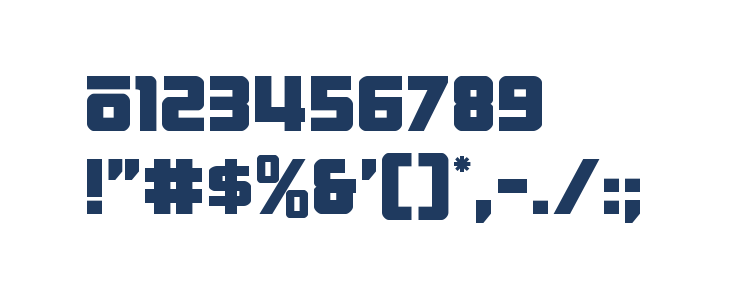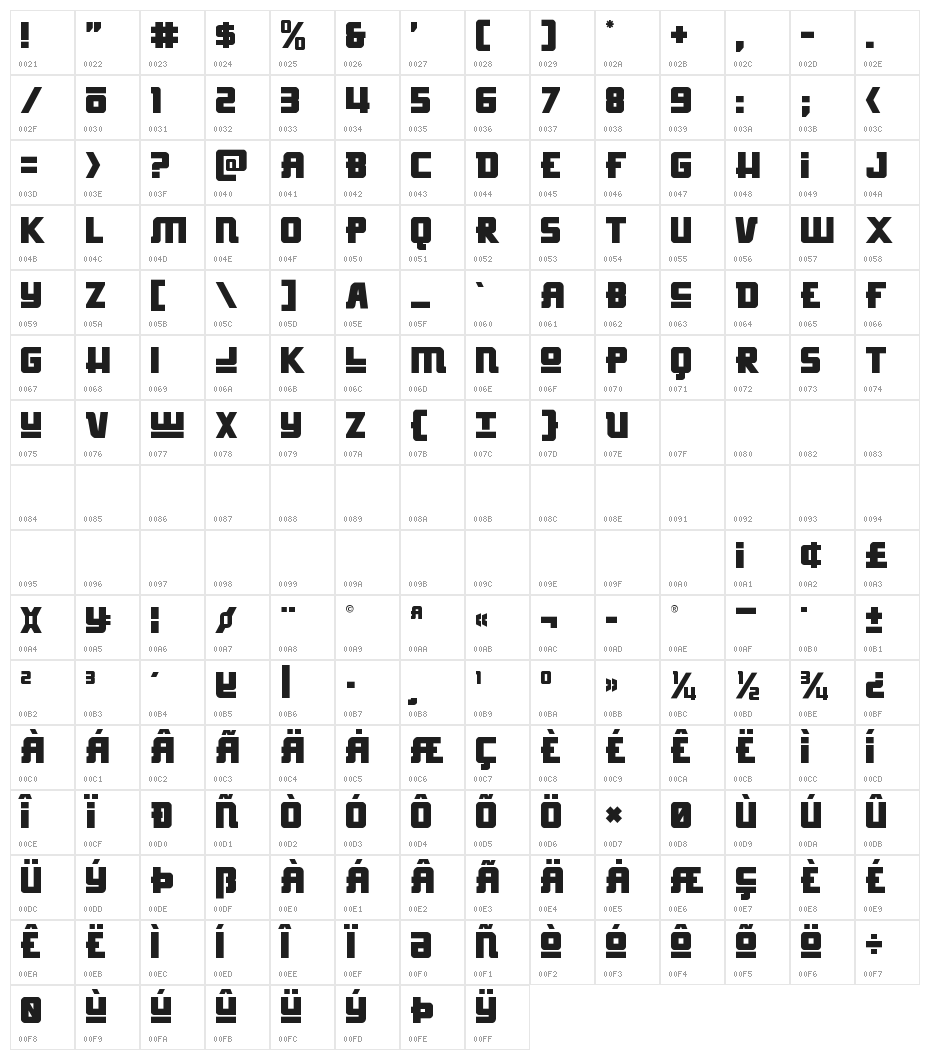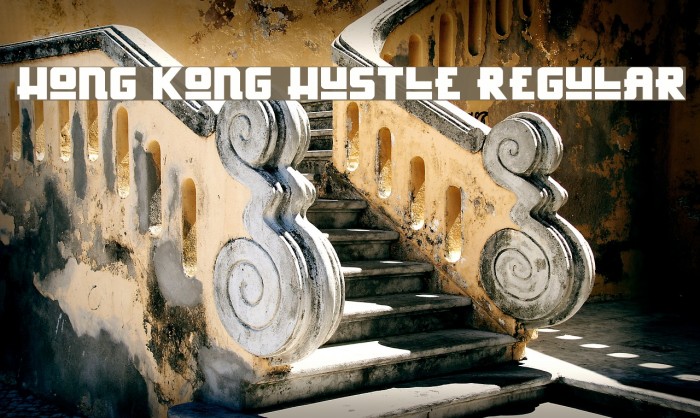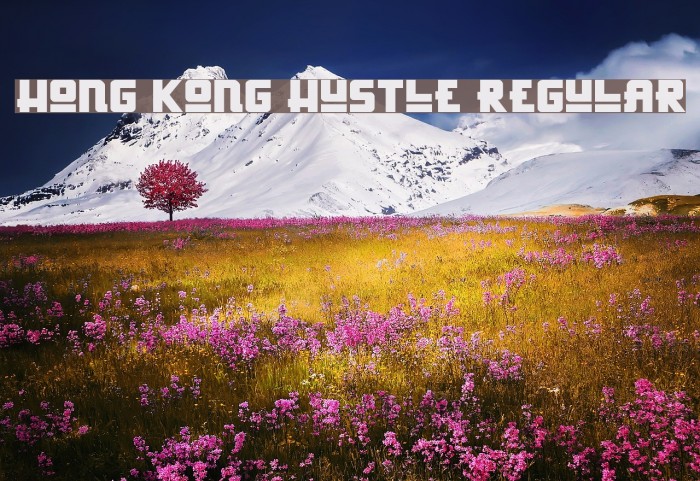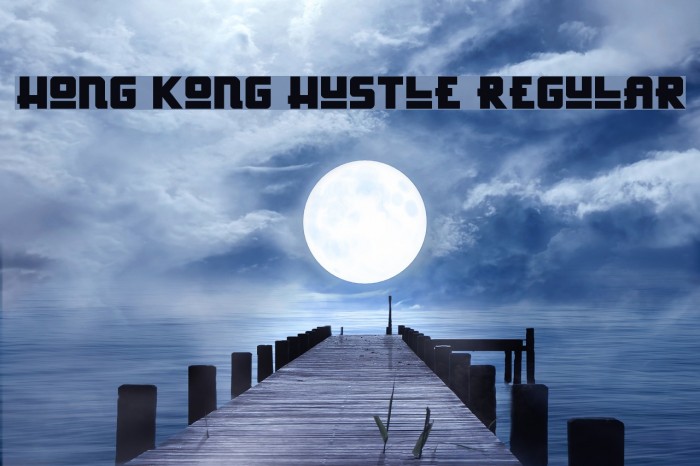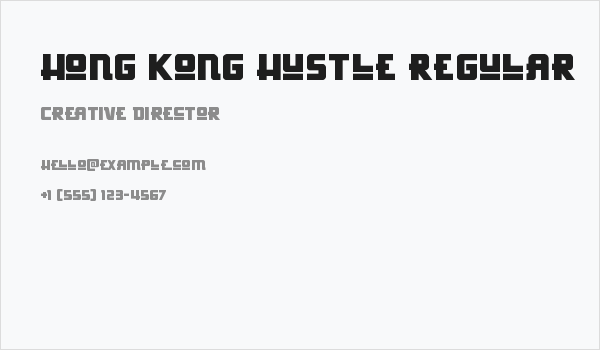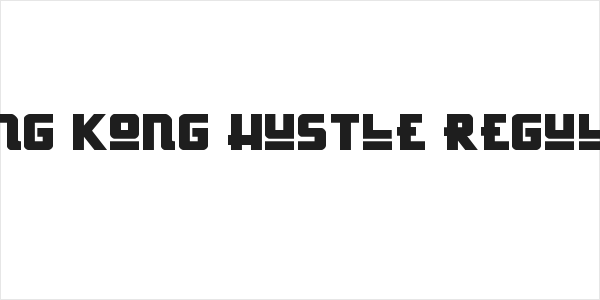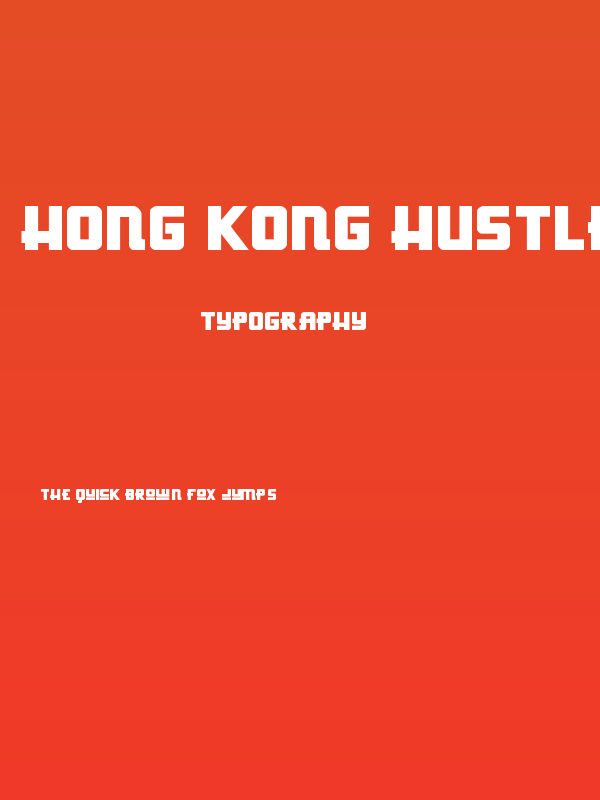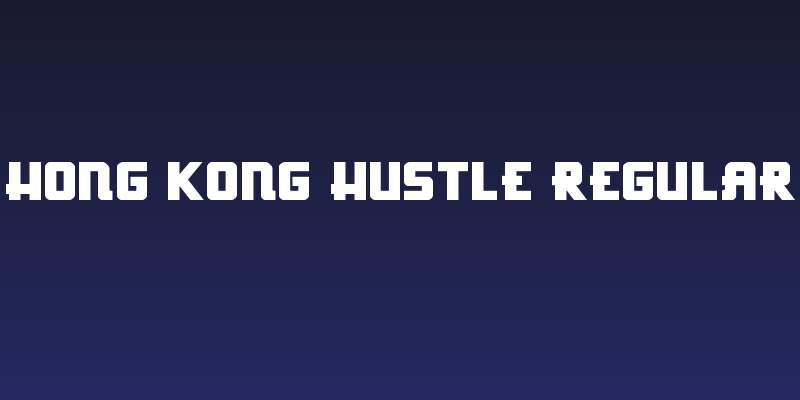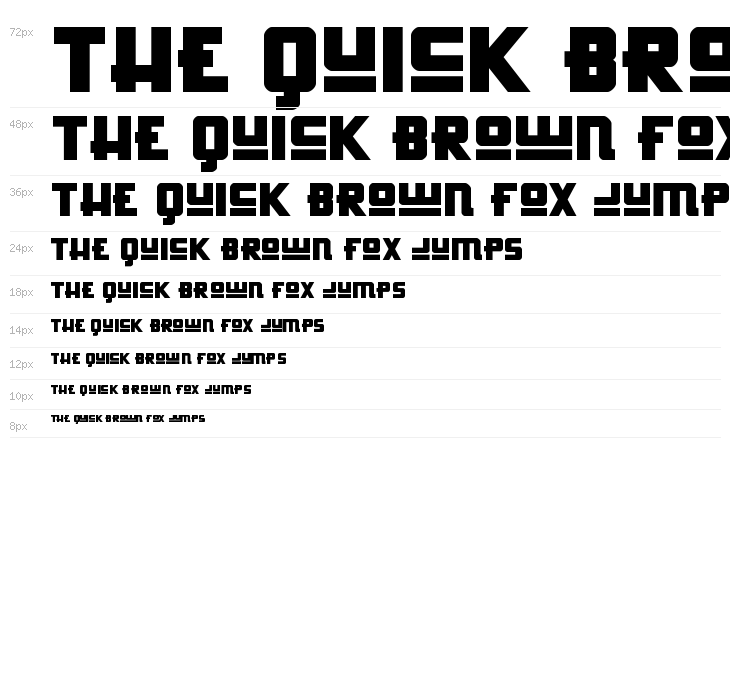
Hong Kong Hustle Regular Font
Hong Kong Hustle Regular Description
This font features a bold, geometric design with a distinct urban flair. The characters are blocky and robust, with a futuristic aesthetic that incorporates sharp angles and straight lines. The uppercase letters are particularly striking, with unique cutouts and shapes that add a sense of movement and energy. The numerals and special characters maintain this bold style, ensuring consistency across all glyphs. This font is perfect for projects that require a modern, edgy look, such as branding for tech companies or urban-themed events.